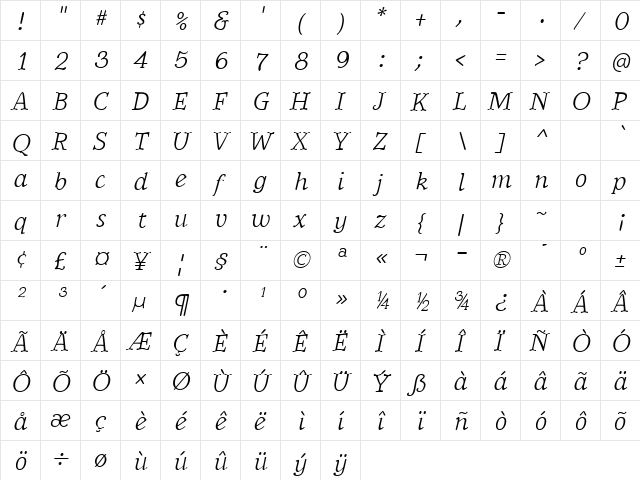
BetterIngriana Italic Font Preview
BetterIngriana Italic
Design Context for BetterIngriana Typeface
BetterIngriana offers clean, dependable letterforms without strong stylistic allegiance, making it a practical choice for designers who need flexibility. Its italic angle brings a sense of urgency and motion to the letterforms.
Pro Tip: Try BetterIngriana for annotation and caption copy alongside an upright companion — the contrast in angle creates a dynamic but ordered typographic system.